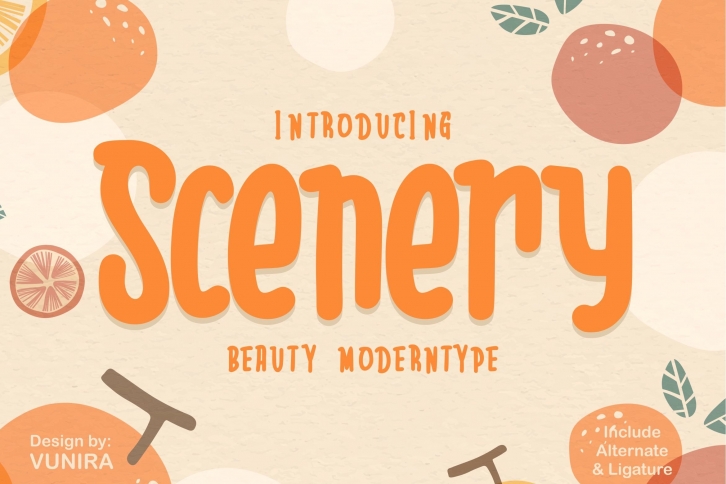
Scenery is a trendy and unique font with an authentic style. It was designed by Vunira and it's a great choice for creative people who need such a font. It was released on August 9, 2020 and the file size is 9.32 MB. Scenery will add an organic vibe to any design idea!